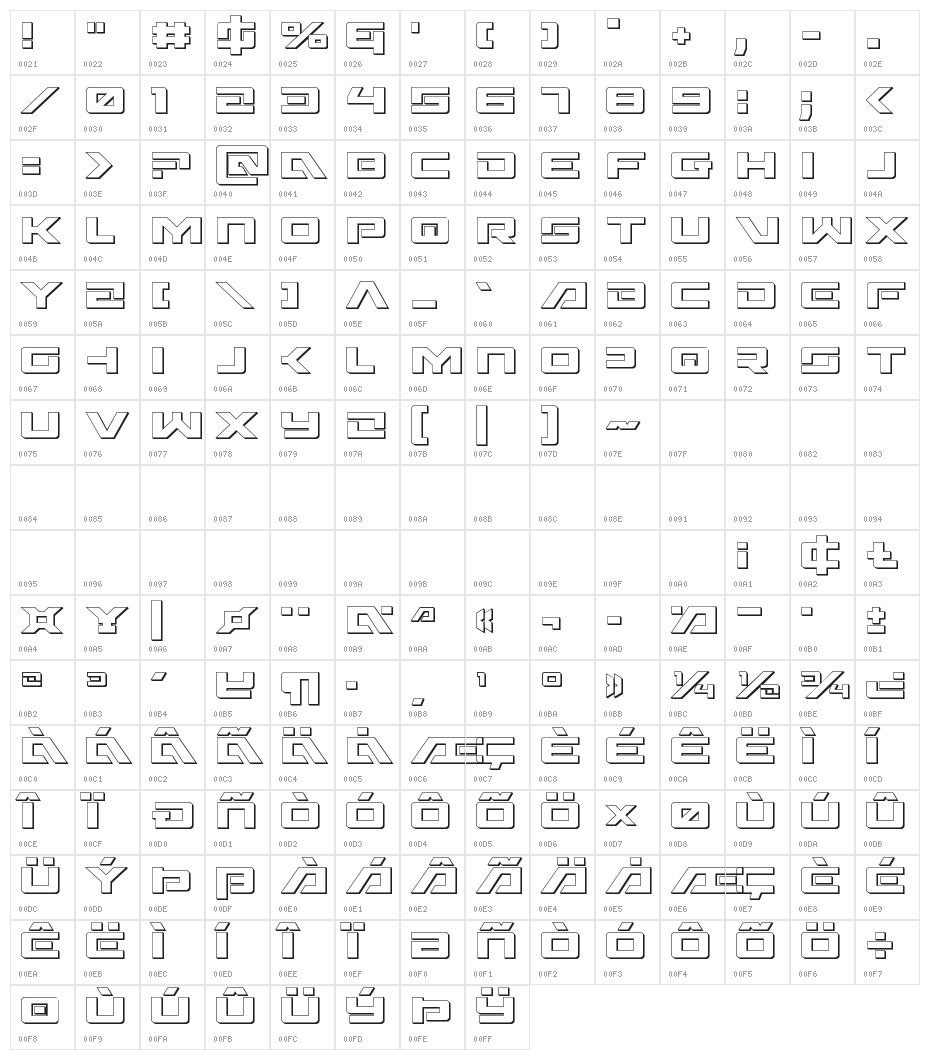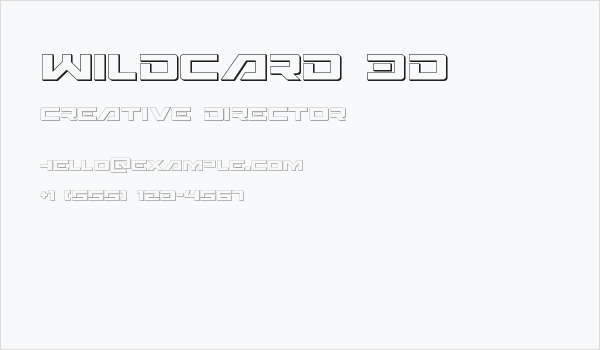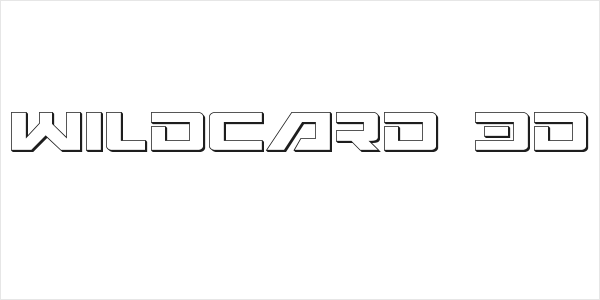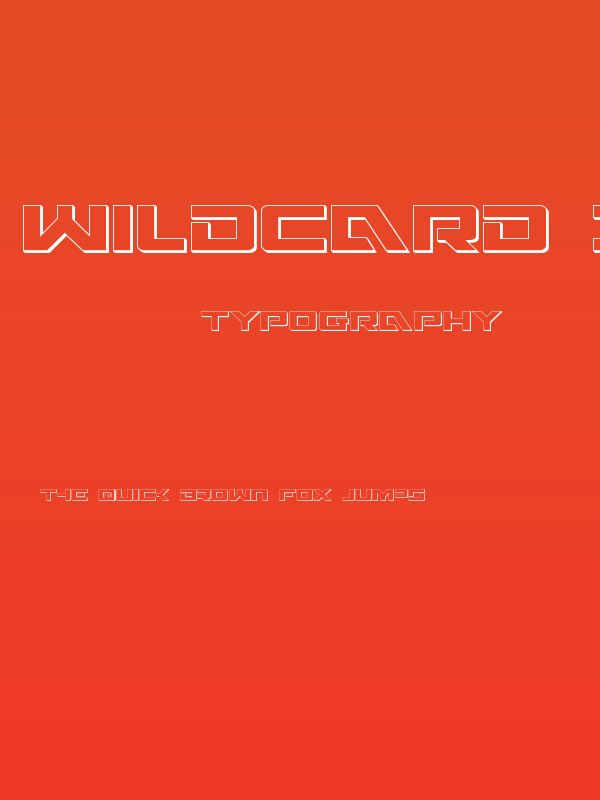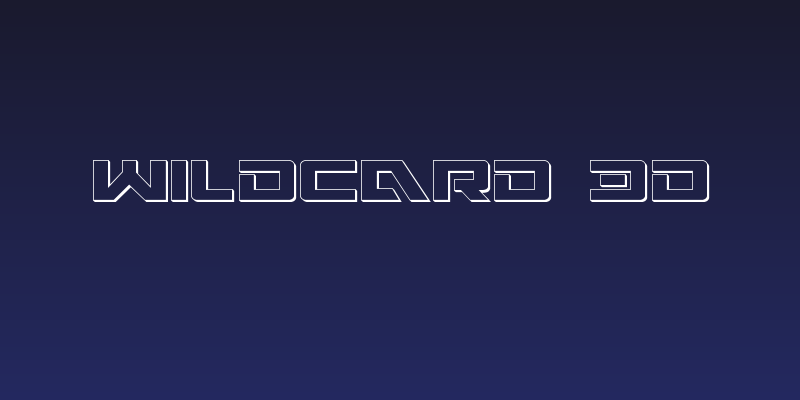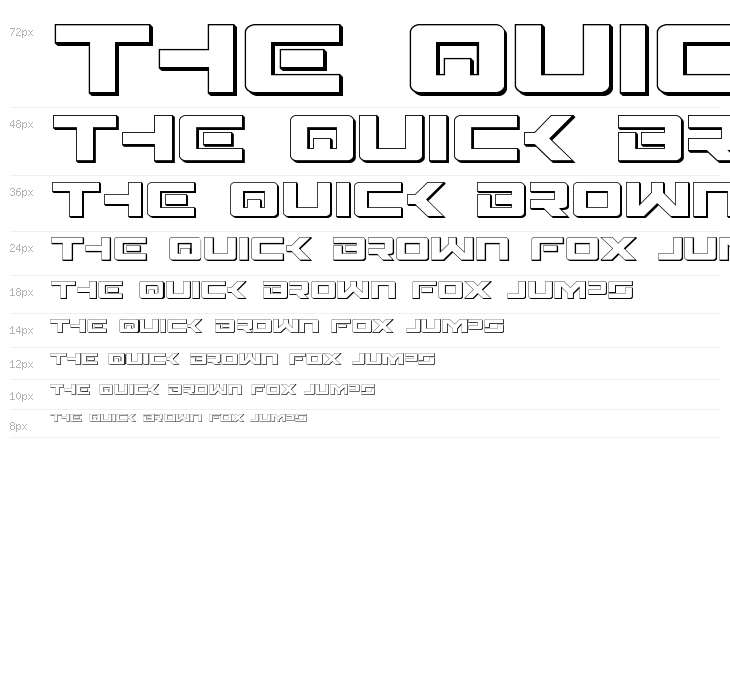
Wildcard 3D Font
Wildcard 3D Description
This font features a bold, geometric design with a three-dimensional effect that gives it a futuristic and dynamic appearance. The characters are constructed with sharp angles and straight lines, creating a sense of movement and depth. The uppercase and lowercase letters maintain a consistent style, with the lowercase mirroring the uppercase in form. The numerals and special characters are designed to match the angular and bold aesthetic, ensuring uniformity across all glyphs. The font's unique style makes it stand out, ideal for projects that require a modern and edgy look.
| Proposed Projects | Ideal for sci-fi themed designs, video game titles, tech branding, and modern posters. |